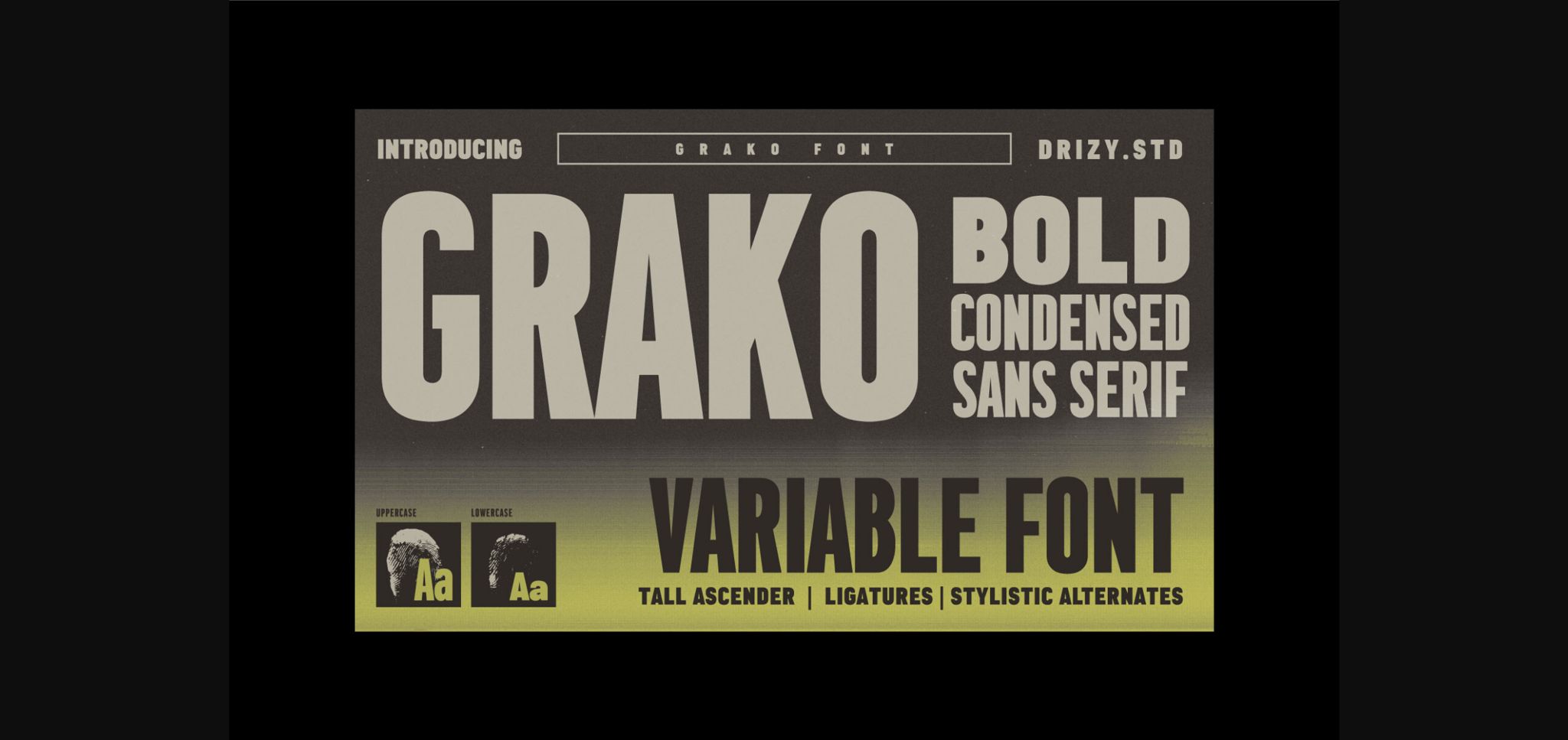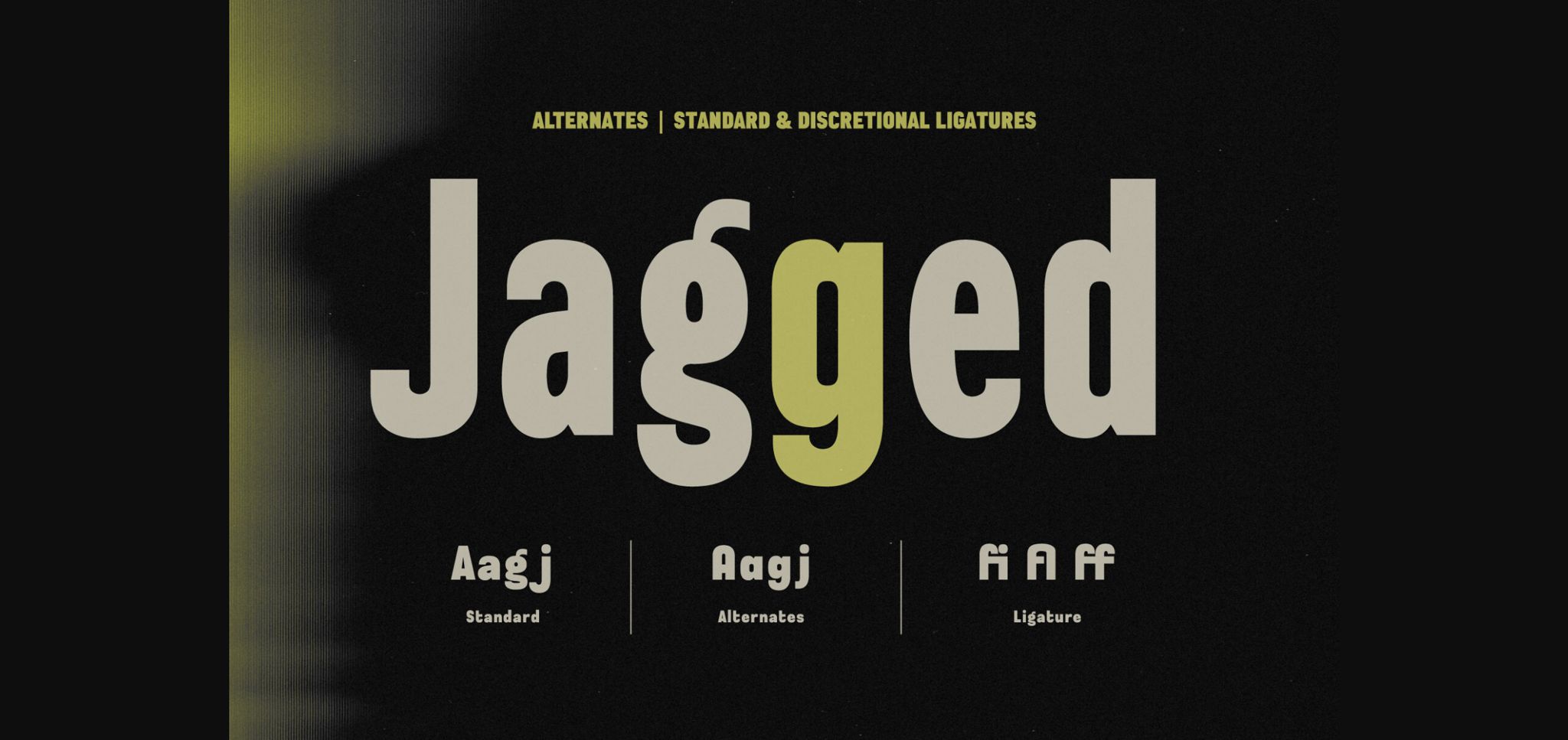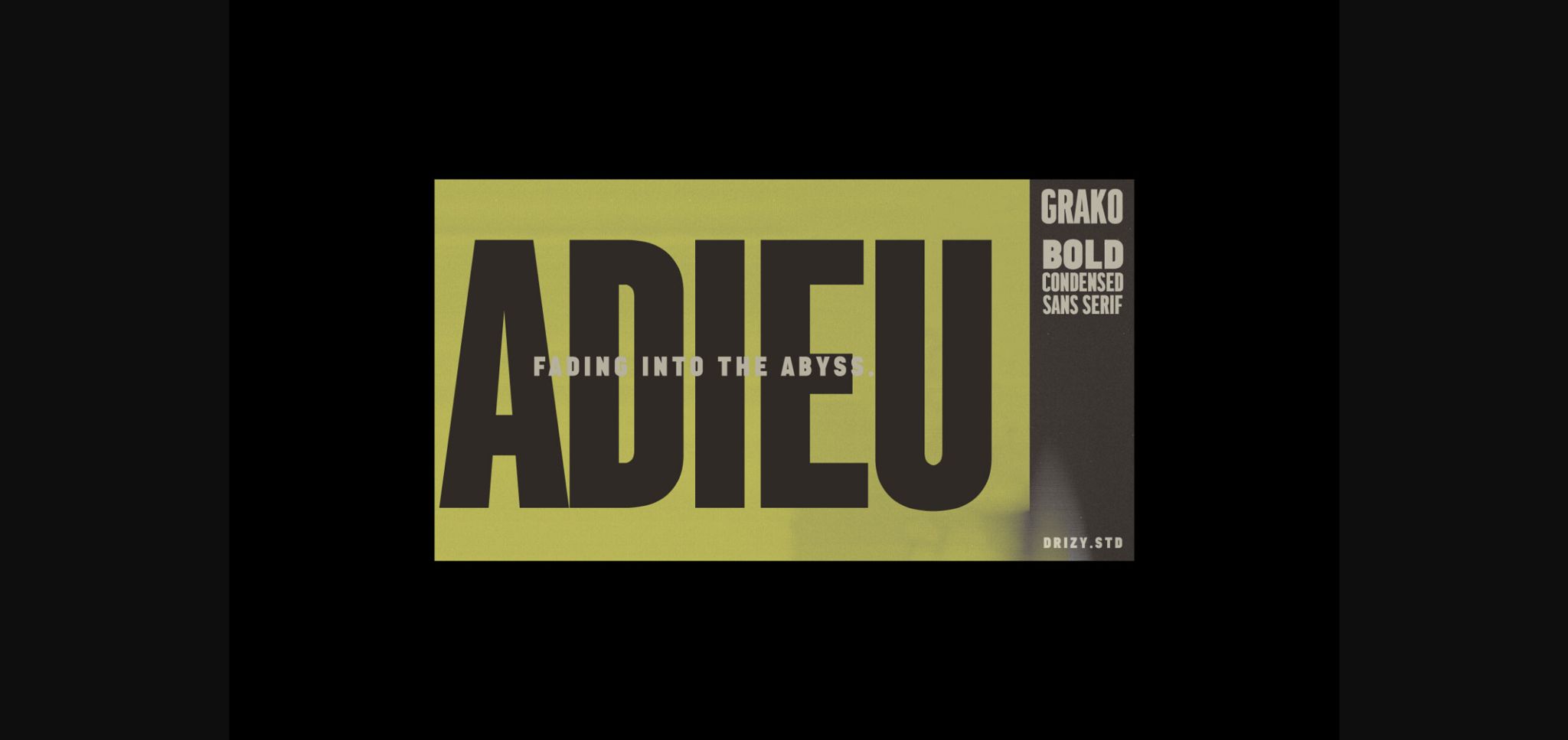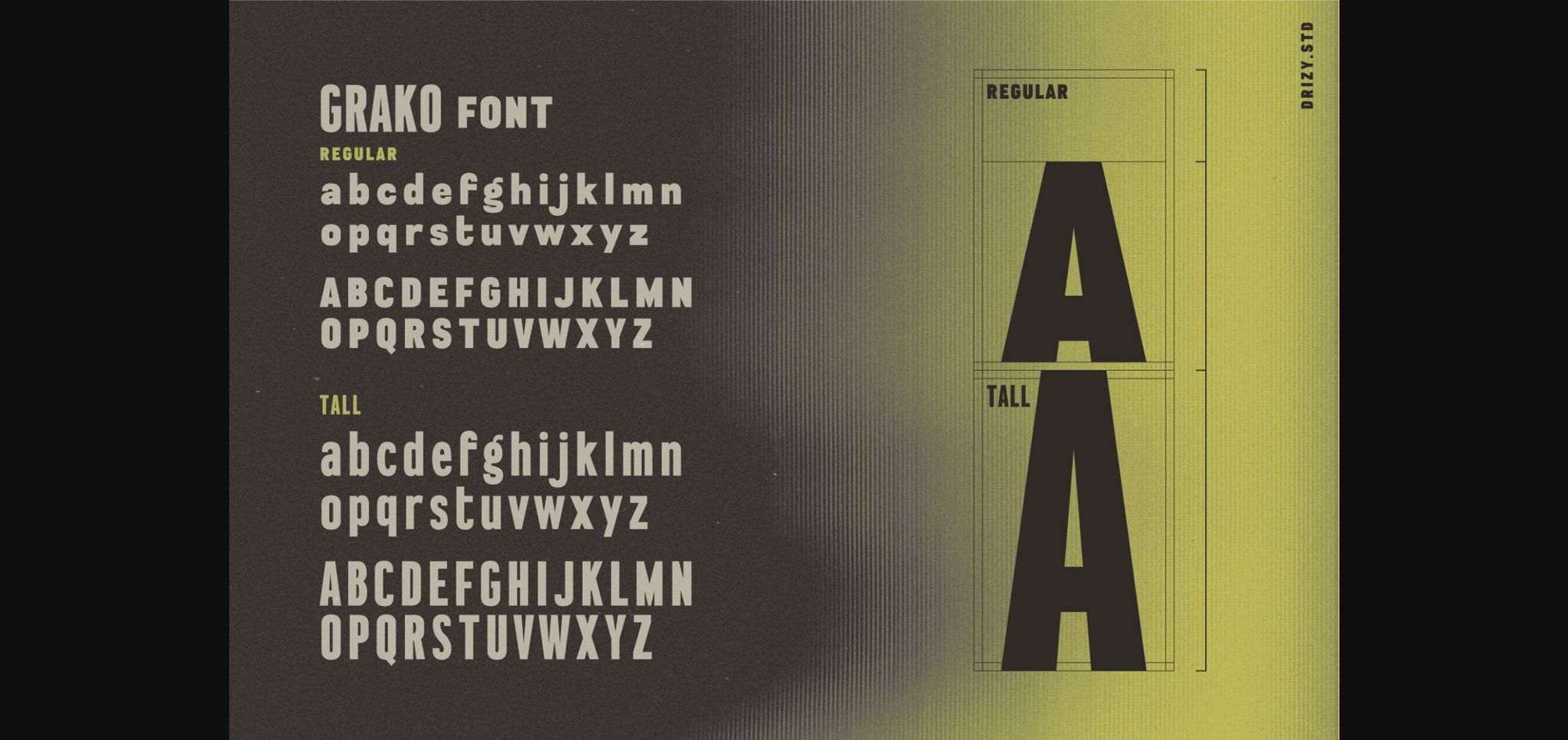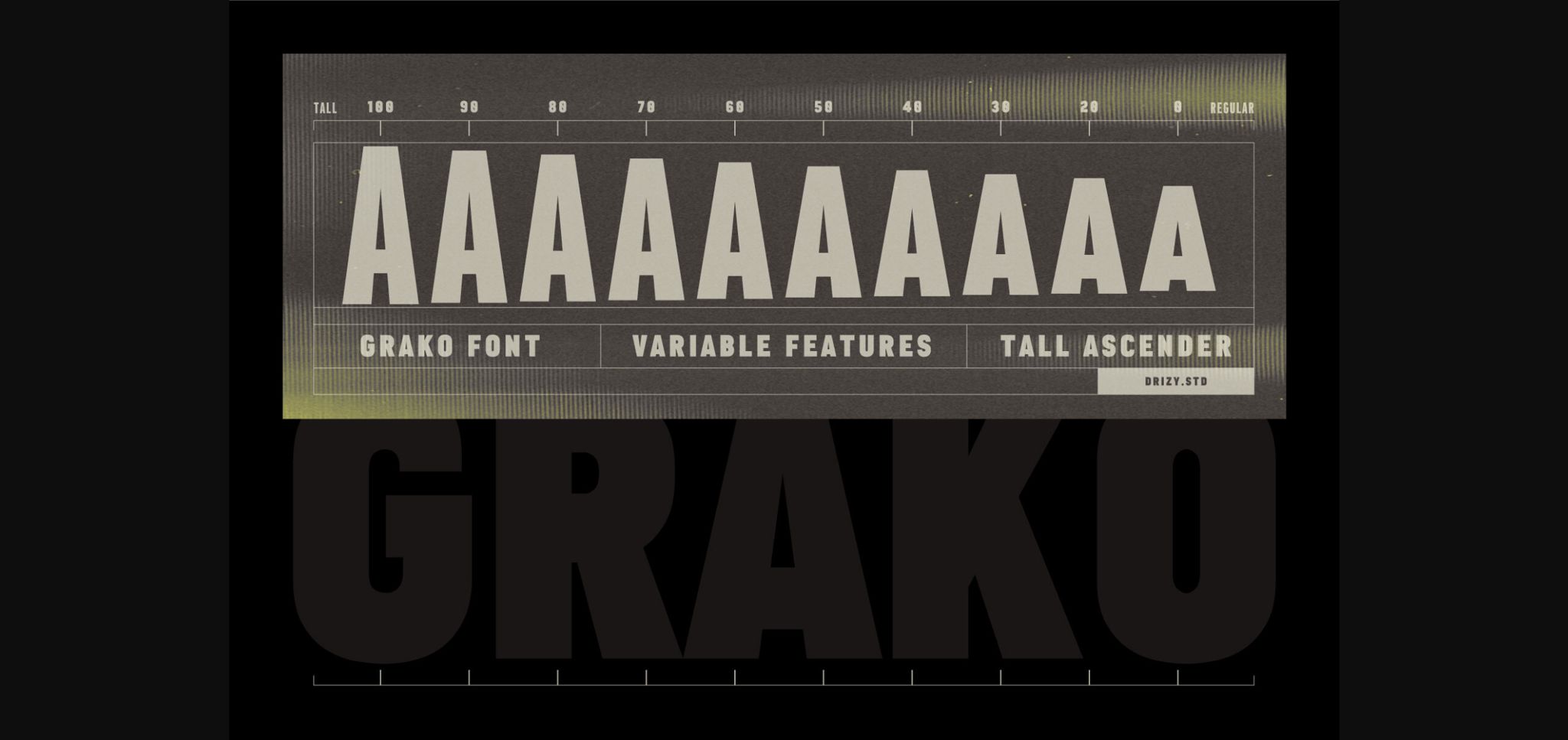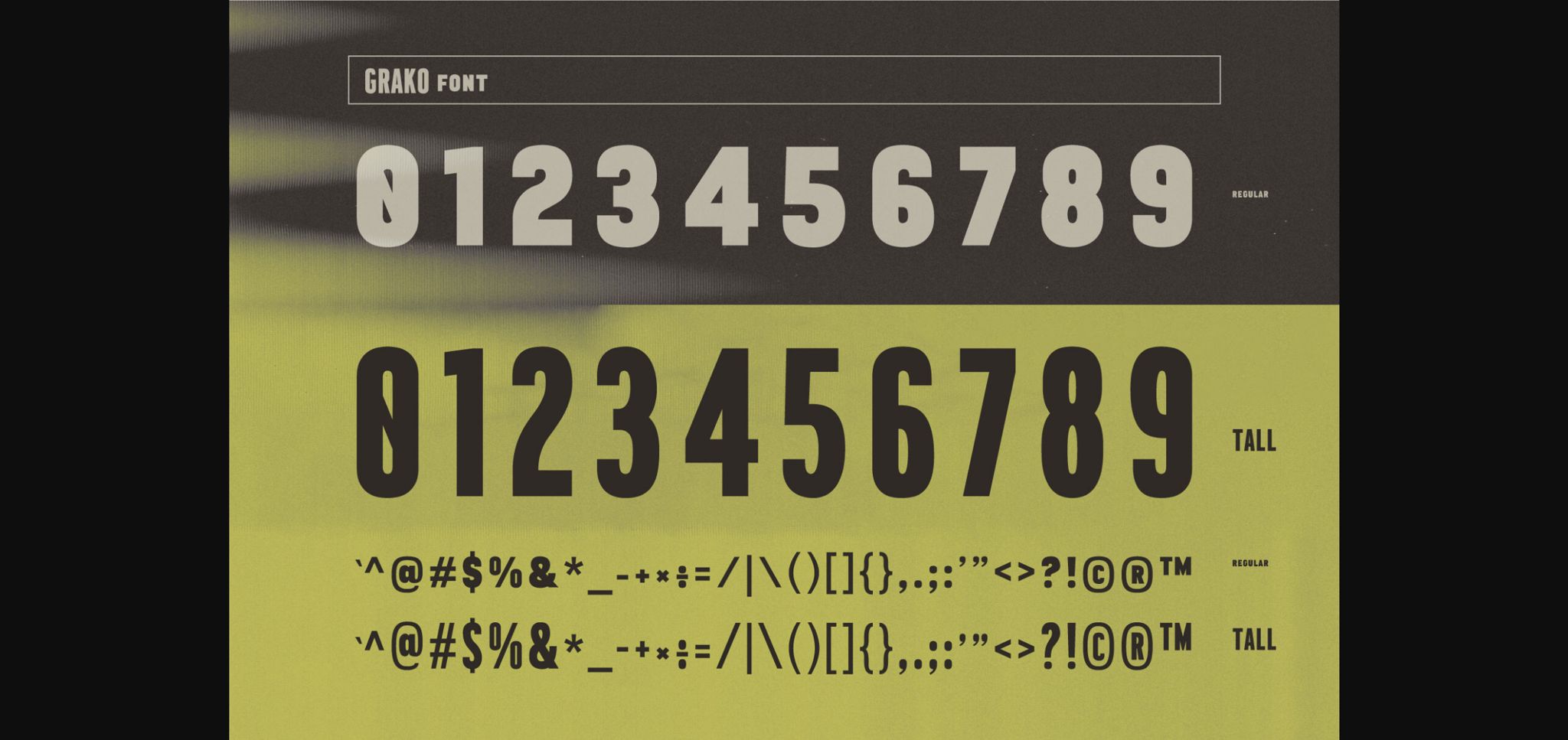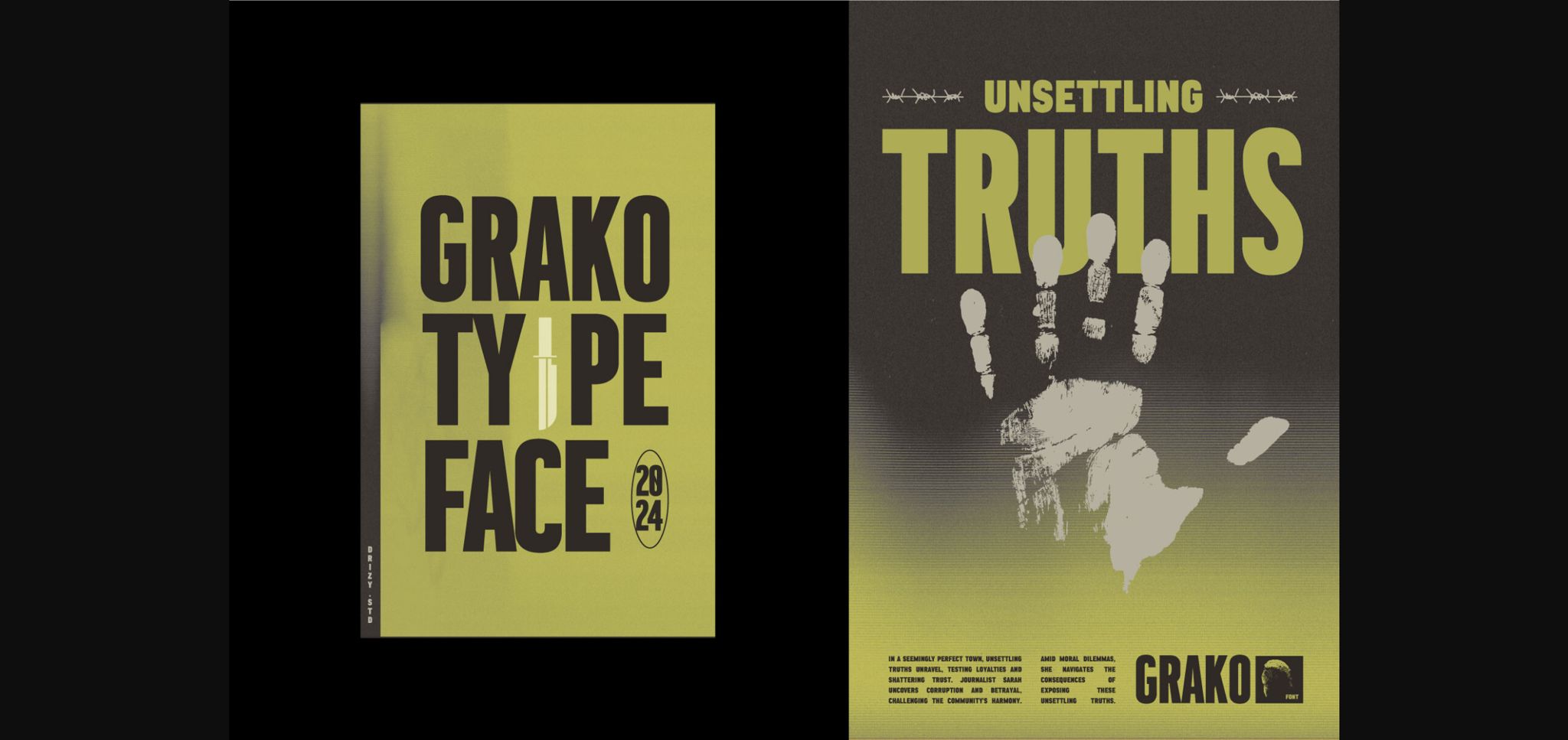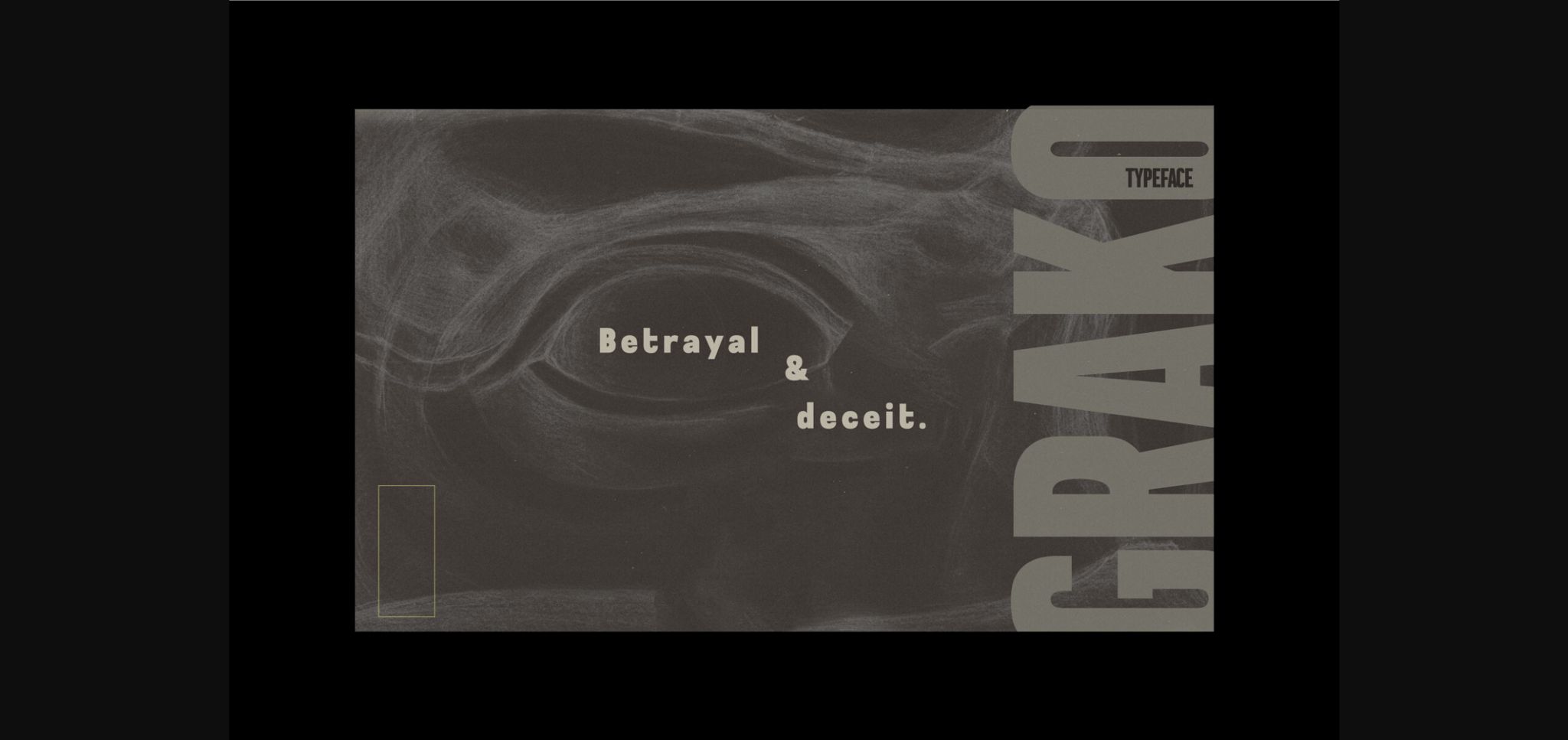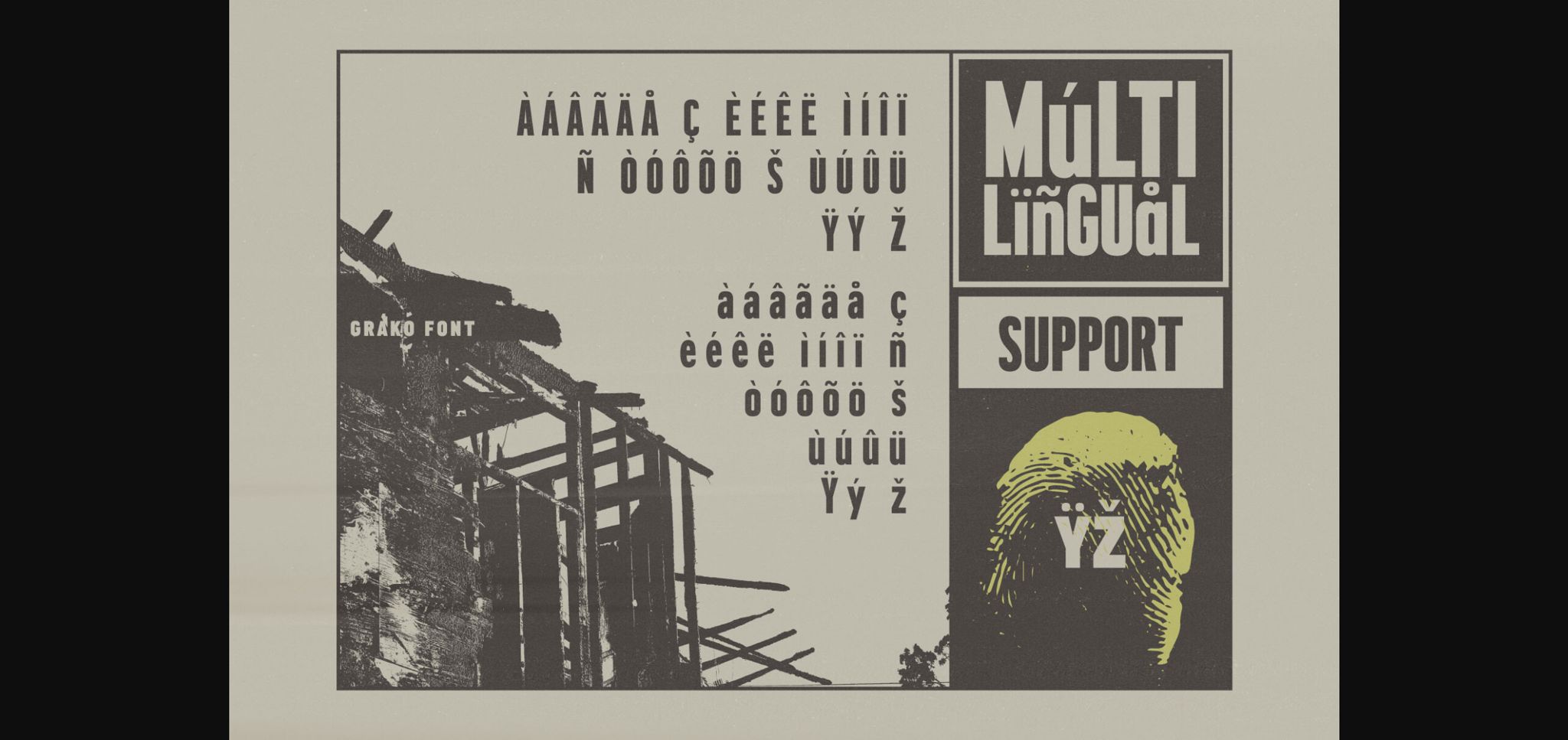
Grako Font
About Grako Font
Grako – Bold Condensed Sans Serif Variable Font
Introducing Grako – Bold Condensed Sans Serif Variable Font, a cutting-edge typeface designed to make a powerful impact on your visual projects, especially Noir Crime. With its bold and condensed form, Grako commands attention, making it the perfect choice for headlines, titles, and any design element that requires a strong, modern aesthetic.